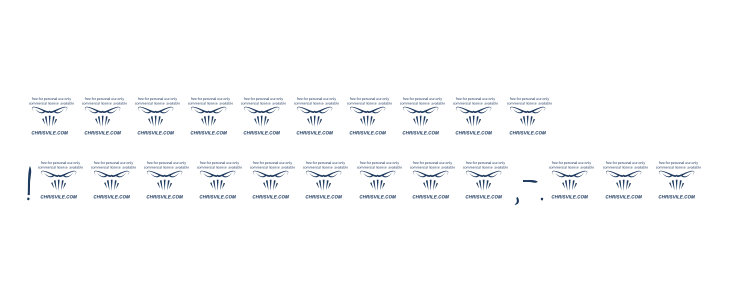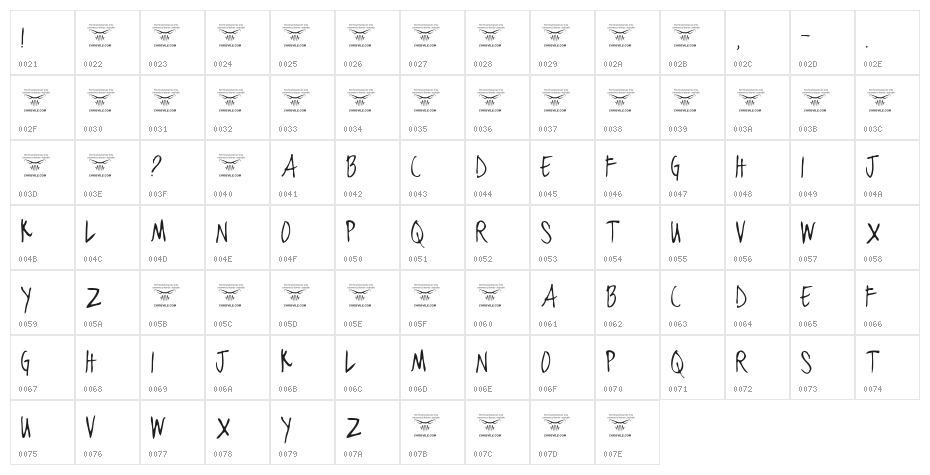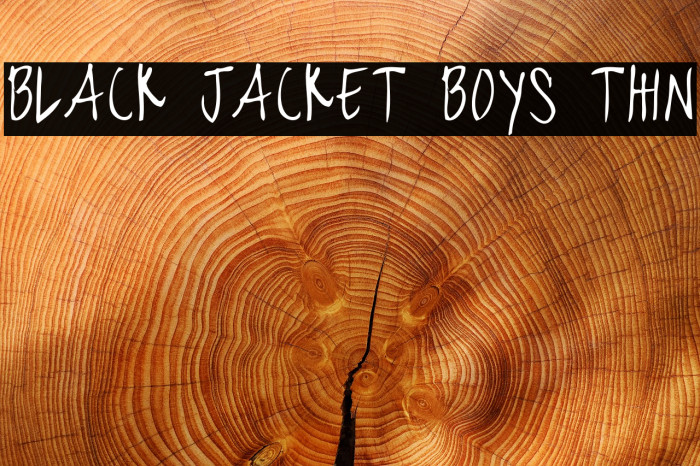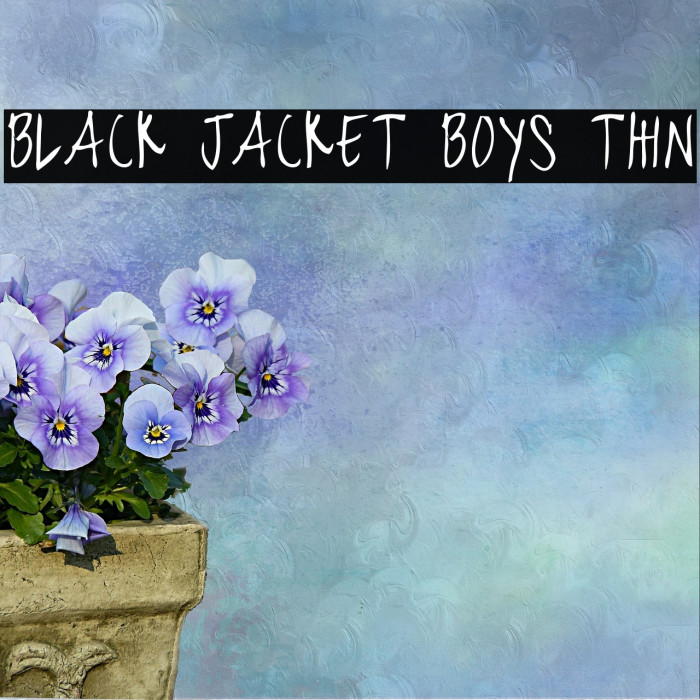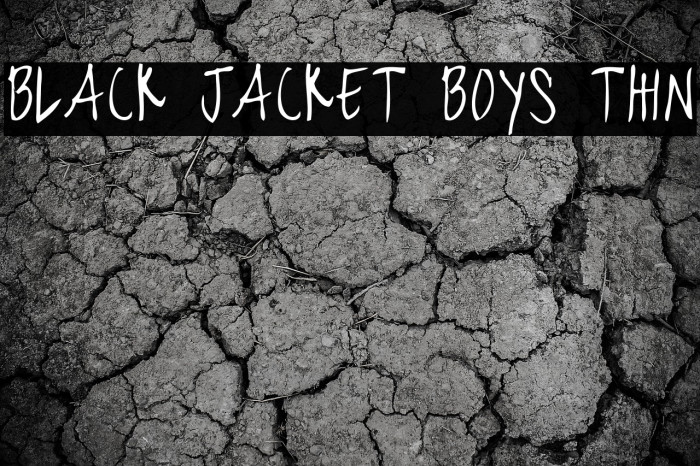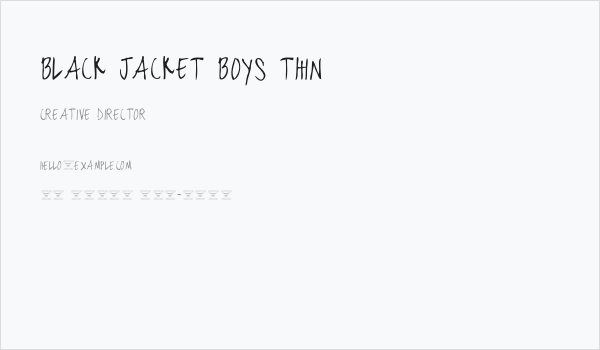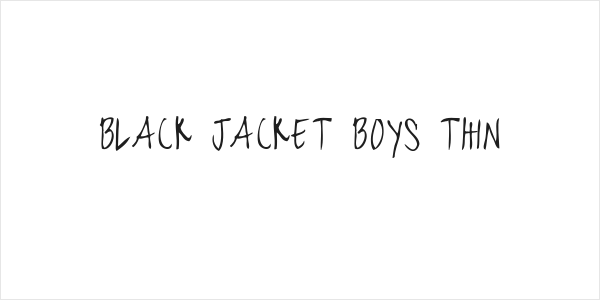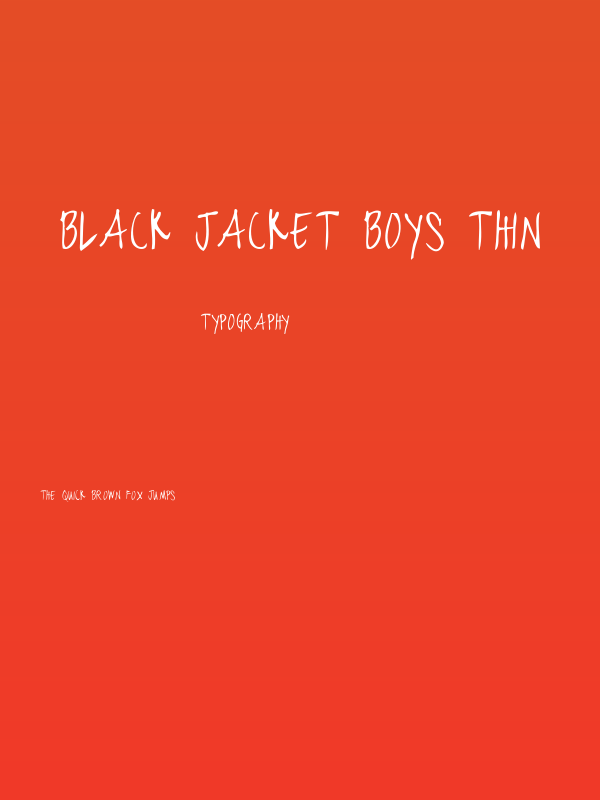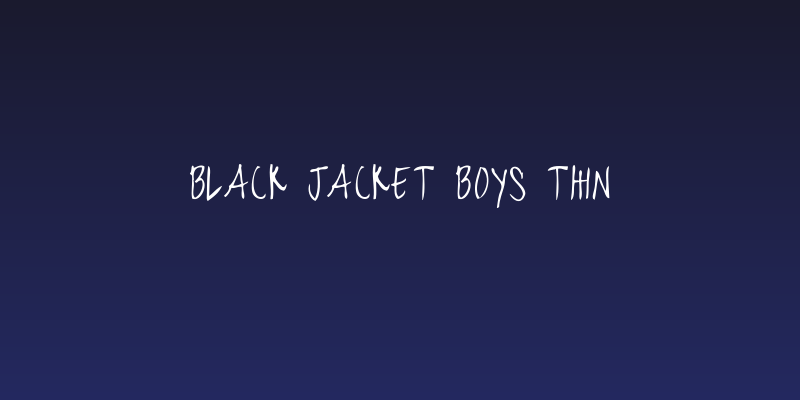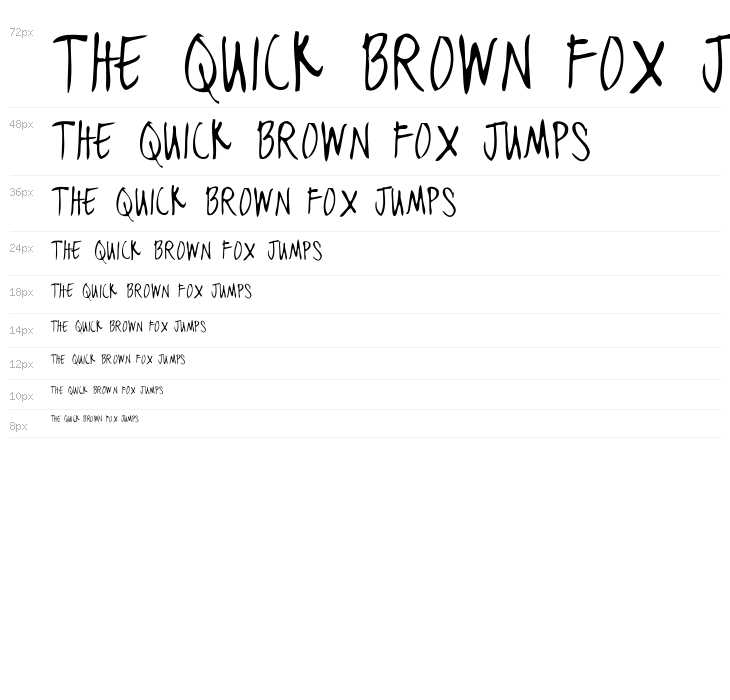
black jacket boys Thin Font
black jacket boys Thin Description
This font features a dynamic and expressive handwritten style, characterized by its elongated and slightly irregular letterforms. The strokes are fluid and organic, giving it a lively and informal appearance. The uppercase letters maintain a consistent height, while the lowercase letters exhibit a playful variation in size and shape. The overall design is reminiscent of casual handwriting, making it suitable for projects that require a personal touch. The font's unique style is both approachable and artistic, ideal for creative and informal applications.
| Overall Style | Casual, Artistic |
| Proposed Projects | Ideal for greeting cards, invitations, personal branding, and creative projects that require a personal touch. |